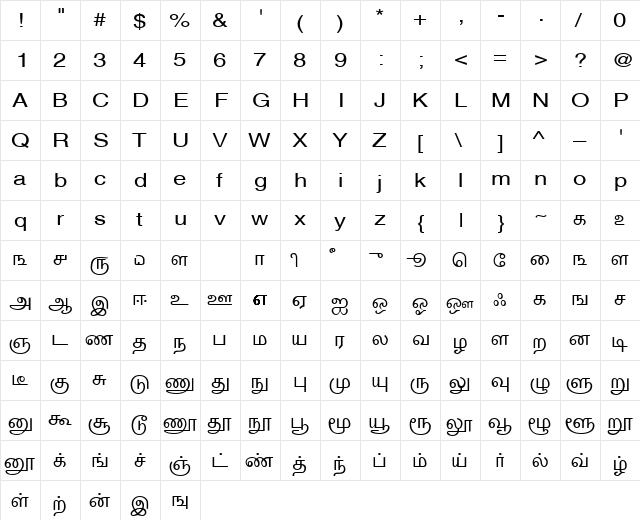
SaiIndira Regular Font Preview
SaiIndira Regular
SaiIndira Regular Font Details
Design Context for SaiIndira Typeface
SaiIndira takes a measured approach to typography — its balanced proportions and neutral character make it a reliable workhorse for both digital and print work.
Pro Tip: Pair SaiIndira with a font of contrasting weight or personality to build a more expressive typographic hierarchy.